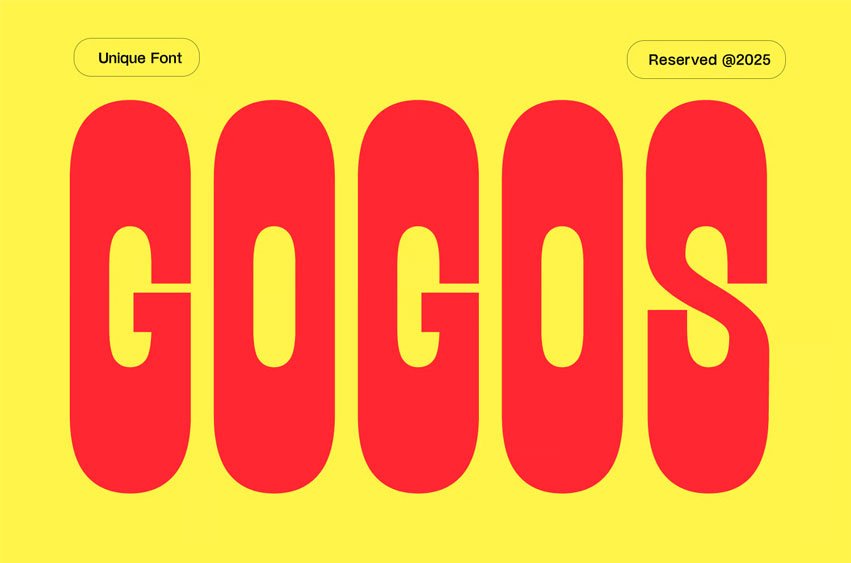
Gogos Font is a playful and sans-serif font. Perfect for funny posters, cheerful banners, party invitations, social media graphics, kids’ designs, and more, Gogos combines a modern look with a cute and happy vibe that instantly grabs attention.
This unique typeface blends bold curves and quirky shapes to convey energy, warmth, and creativity, making it ideal for brands and creators looking to express fun, friendliness, and approachability.
Features: Perfect for funny, cute, and modern design styles
*Great for posters, banners, merchandise, and web use.